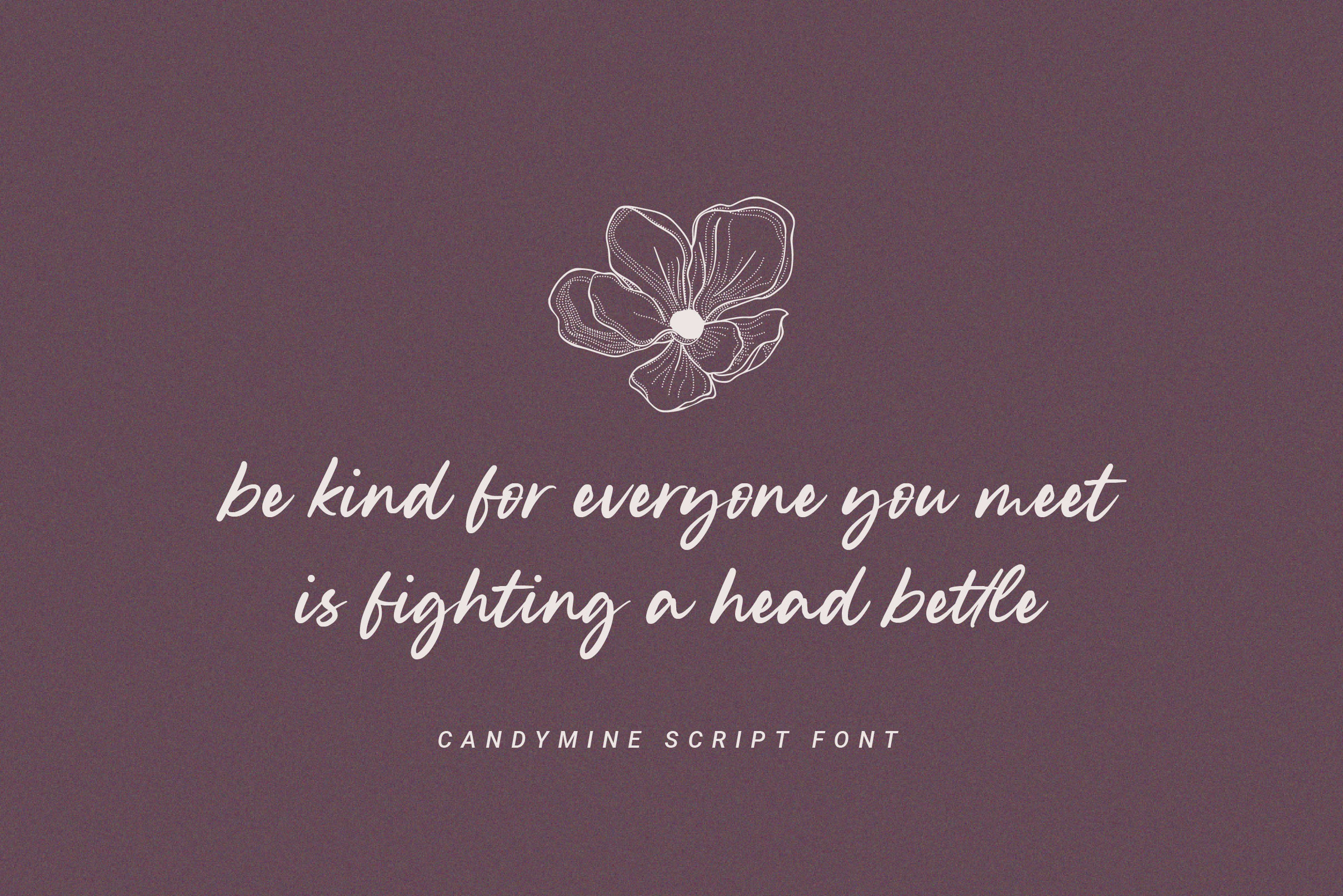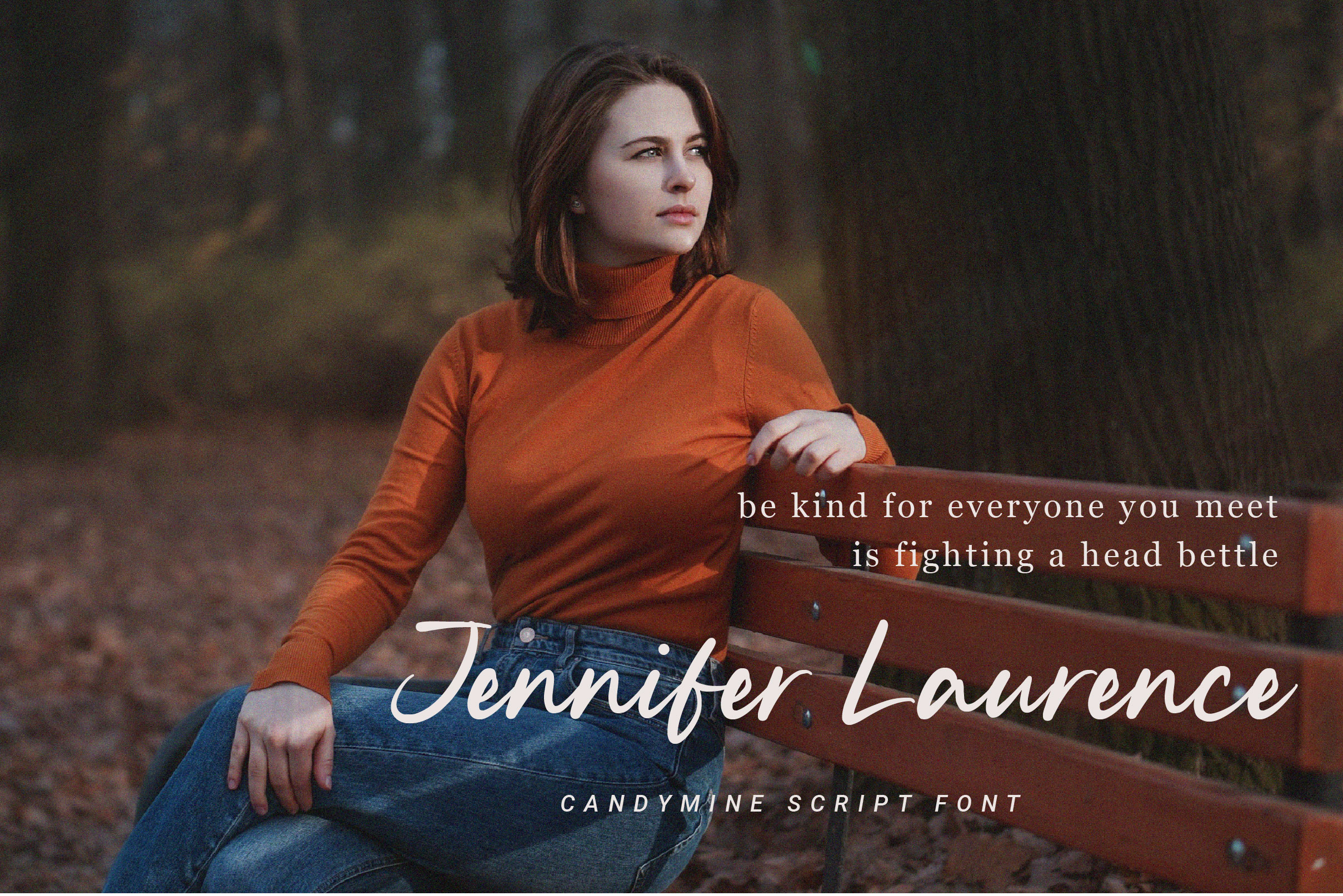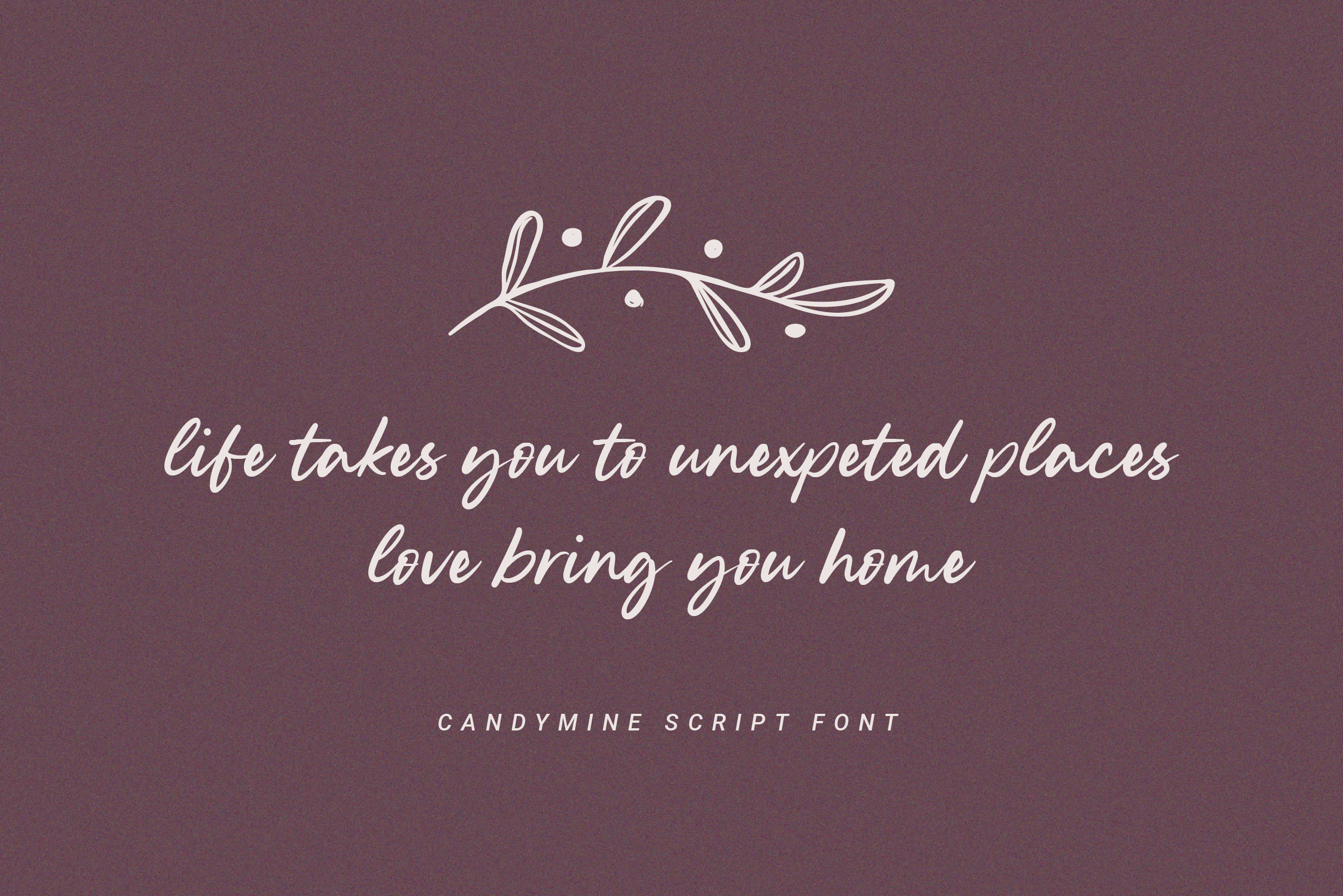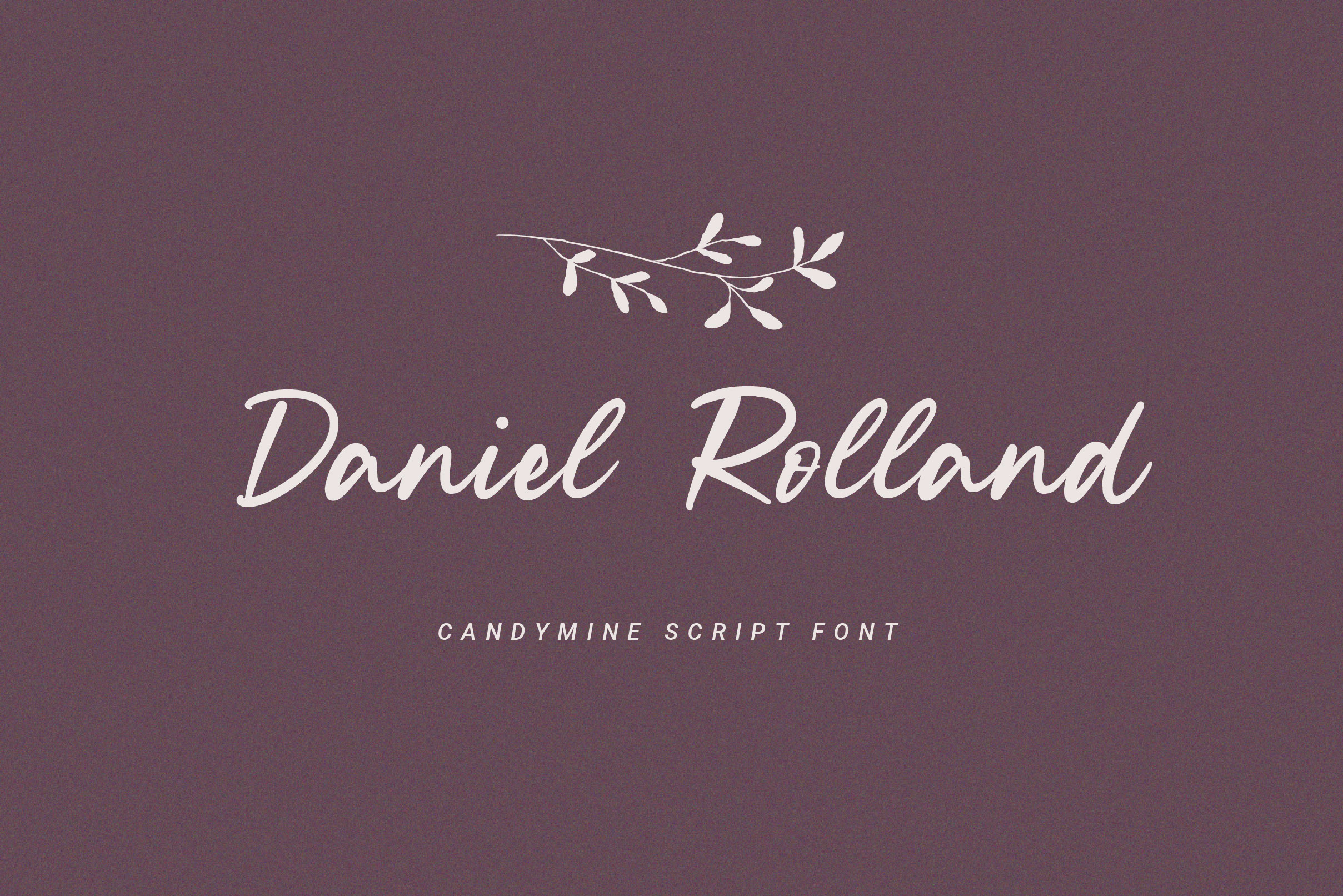
Candymine Font
Candymine Handwritten Font is a lovely and sweet handwritten script font. This gentle font will look gorgeous on a variety of design ideas. It will add a joyful and romantic touch to each of your projects!
– Uppercase, Lowercase, Numeral & Punctuation
– Alternate Letters, Ligature & Swash/Tail